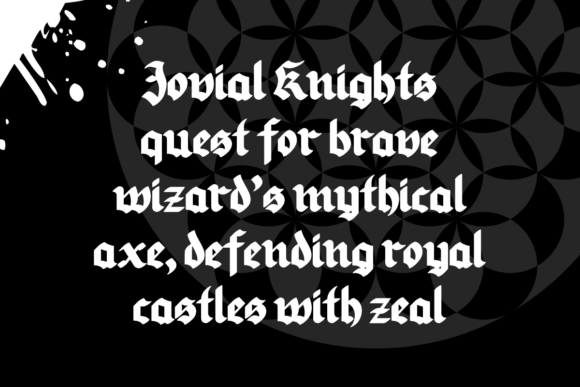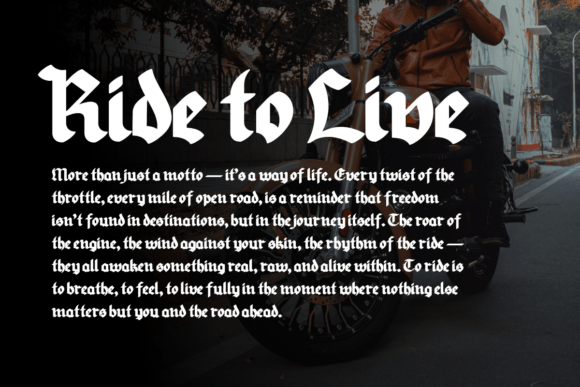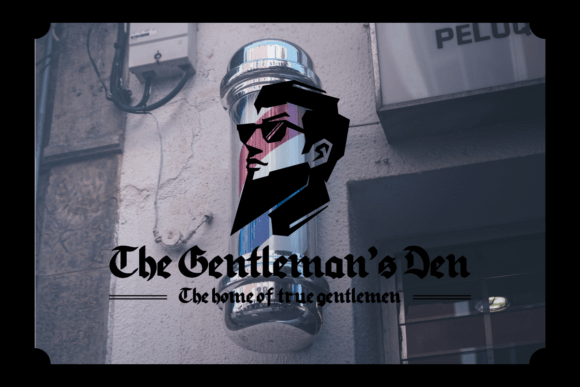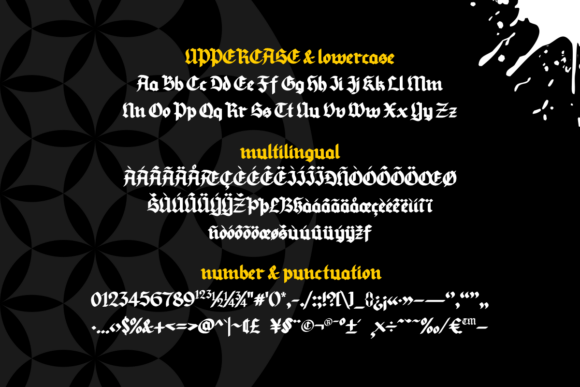
The Perfect Font for the Fearless Designer
Have you ever found yourself staring at a blank page, trying to conjure up the perfect font to match your project’s dark and edgy vibe? You know, that moment when you’re trying to channel your inner horror movie director or rockstar, but the right words just aren’t coming together? Well, we’ve got just the solution for you.
Enter the Blood Oath Font, a bold and dramatic display font that’s designed to capture the essence of horror, mystery, and rebellion. With its sharp edges and raw strokes, this font is perfect for designers who want to add a touch of fearlessness and style to their projects. Whether you’re working on a horror movie poster, a rock or metal logo, or a Halloween invitation, the Blood Oath Font is the perfect choice.
Blood Oath Font Key Features
- Font Family: Blood Oath Font is a serif font family designed for use in various contexts, including body text, headings, and display typography.
- Character Count: The font family includes over 1,200 characters, including uppercase and lowercase letters, numerals, punctuation marks, and special characters.
- Unique Characteristics: The Blood Oath Font features a distinctive, hand-crafted aesthetic with subtle texture and organic flair, adding a touch of elegance and sophistication to any design.
Blood Oath Font Review
As a designer, I was excited to dive into the Blood Oath Font, but my experience was a mixed bag. Here are my thoughts.
- Unique aesthetic: The Blood Oath Font has a distinct, macabre feel that’s perfect for dark, edgy projects.
- Well-crafted letters: Each letterform is carefully designed, with subtle flourishes that add to the font’s mystique.
- Wide language support: The font includes a wide range of languages, making it suitable for international projects.
- Difficult to read: While the font is visually striking, it can be challenging to read, especially at smaller sizes.
- Limited font weights: The font only comes in a few weights, which may limit its versatility in certain projects.
- Not suitable for body text: The font’s ornate design makes it more suited for headlines and titles rather than body text.
Overall, the Blood Oath Font is a great choice for projects that require a dark, gothic aesthetic. However, its limitations may make it less suitable for more general use. As a designer, I appreciate the font’s unique qualities, but I would caution against using it for large blocks of text or everyday body text.
Tips for Getting the Most Out of the Blood Oath Font
Here are a few tips to help you get the most out of the Blood Oath Font:
- Pair the Blood Oath Font with other fonts to create a unique and eye-catching design.
- Use the font in conjunction with images and graphics to create a cohesive and engaging design.
The Blood Oath Font is a versatile font that can be used in a variety of contexts, including:
- Designing a logo or branding materials. Alternatives to Blood Oath Font
- Choose a background image or texture that resembles old parchment or stone walls.
- Use the Blood Oath Font to create a bold, eye-catching title that screams “medieval fantasy”.
- Combine with other design elements such as golden accents, intricate illustrations, and mystical symbols to complete the look.
- Use a combination of bold and cursive fonts to create visual interest.
- Experiment with different textures and patterns to add depth and dimension.
- Balance the design by distributing elements in a harmonious and balanced way.
- Choose a dark and ominous color palette that reflects the horror theme.
- Use the Blood Oath Font to create a haunting title that hints at the horrors within.